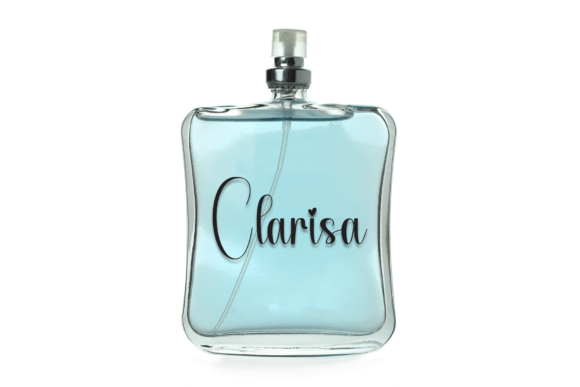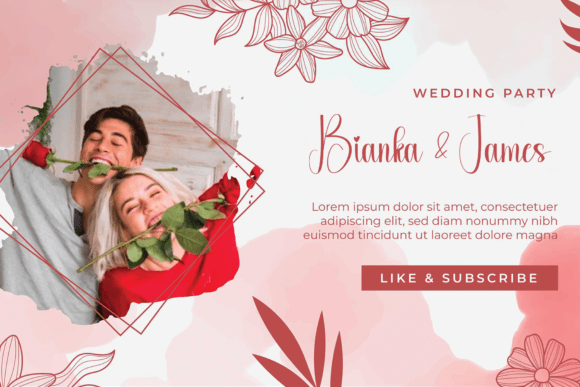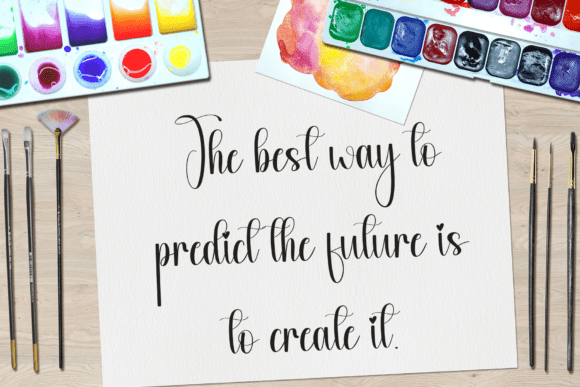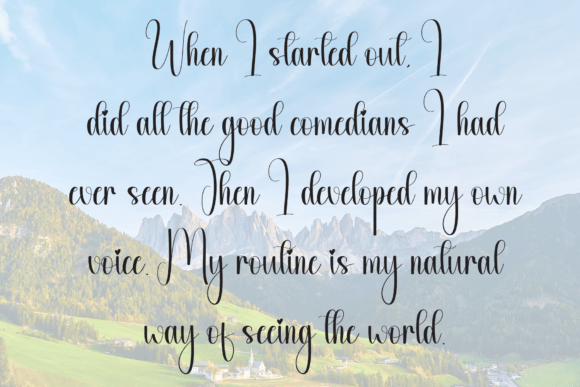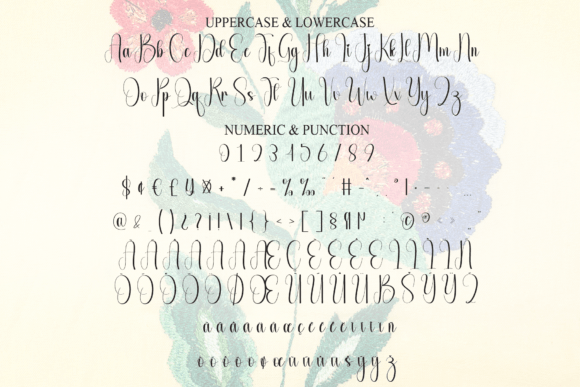
Introducing Embrodery Font: Elevate Your Designs with Elegance and Playfulness
In the world of typography, few fonts manage to strike a balance between modern sophistication and playful charm. Embrodery Font is one such exceptional typeface that brings a breath of fresh air to the design landscape. This stylish handwritten script font is meticulously crafted to blend fluid strokes with charming curves, infusing a personal feel into any design it touches. Whether you’re a designer looking for a unique logo font, a crafter seeking the perfect style for your packaging, or an event planner in need of an elegant invitation font, Embrodery Font is your go-to choice.
The Essence of Embrodery Font
Embrodery Font stands out with its distinctive handwritten script style that exudes both modern elegance and a playful touch. The fluidity of its strokes and the grace of its curves give it a unique personality that can transform any text into a visually appealing piece of art. This font is not just about aesthetics; it’s about conveying emotions and adding a personal touch to your designs.
One of the key strengths of Embrodery Font is its versatility. It’s incredibly adaptable, making it suitable for a wide range of design projects. Here are a few ways you can use Embrodery Font to elevate your designs:
- Logos: Create a memorable brand identity with a logo that stands out. Embrodery Font’s unique style ensures that your brand’s name is not just seen but remembered.
- Packaging: Add a touch of elegance and sophistication to your product packaging. Embrodery Font can help your product stand out on the shelves, making it more appealing to potential customers.
- Invitations: Whether it’s a wedding, a birthday party, or any other special occasion, Embrodery Font can add a touch of class and personal warmth to your invitations, setting the tone for the event.
Why Choose Embrodery Font?
There are several reasons why Embrodery Font should be your top choice for your design projects:
- Warmth and Sophistication: Embrodery Font brings a unique blend of warmth and sophistication to your designs. Its elegant strokes and charming curves make it perfect for designers who want to add a personal touch to their work.
- Creativity Unleashed: With Embrodery Font, you have the freedom to experiment with various design ideas. Its versatility allows you to use it in different contexts, from digital designs to print materials.
- Easy to Read: Despite its elegant and playful nature, Embrodery Font remains highly legible, ensuring that your message is communicated effectively.
Tips for Using Embrodery Font
To get the most out of Embrodery Font, here are a few tips:
- Pair it Wisely: Embrodery Font pairs well with simple, sans-serif fonts. This contrast can help highlight the elegance of Embrodery Font while maintaining readability.
- Experiment with Colors: Don’t be afraid to experiment with different colors. Embrodery Font looks great in both bold and pastel colors, allowing you to match it with your brand’s color scheme.
- Play with Sizes: Embrodery Font’s versatility extends to its use in various sizes. Use it as a headline font or for body text, depending on the impact you want to create.
Embrodery Font is more than just a typeface; it’s a design statement. Its perfect blend of modern elegance and playful charm makes it an invaluable asset for designers and crafters alike. Whether you’re looking to create a stunning logo, eye-catching packaging, or beautiful invitations, Embrodery Font is the perfect tool to bring your creative vision to life. With its warmth, sophistication, and creativity, Embrodery Font is set to become your go-to font for all your design needs.